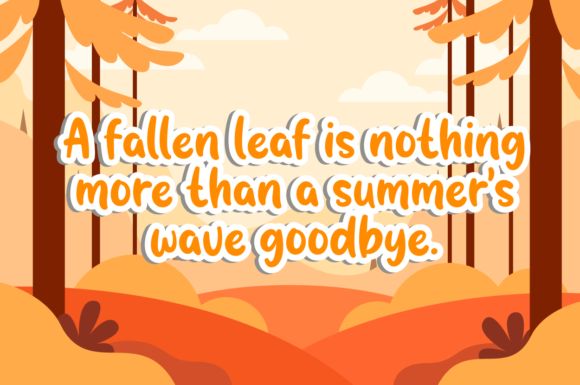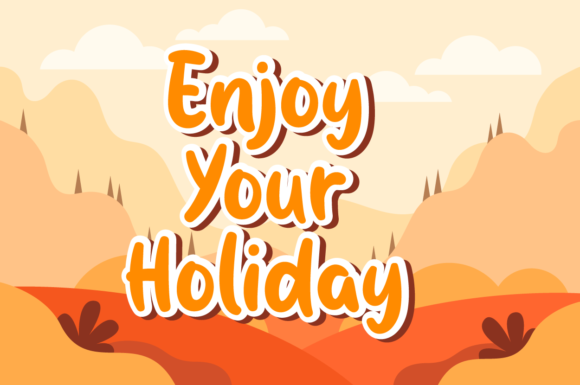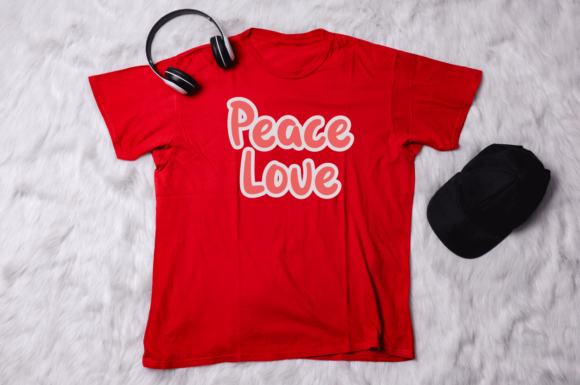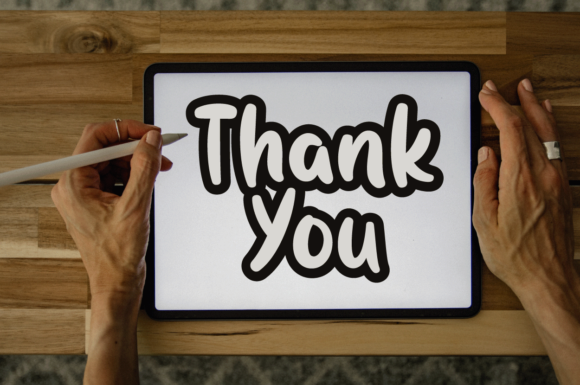
Discover the Charm of Autumn Secret Font: Elevate Your Designs with a Quirky Handwritten Touch
Are you on the lookout for a font that adds a personal touch to your designs? Look no further than the Autumn Secret Font. This quirky handwritten font is making waves in the design community for its friendly feel and incredible versatility. Whether you’re working on thank you cards, quotes, greeting cards, logos, business cards, or any other design that needs an artistic flair, Autumn Secret Font is the perfect choice.
The Unique Appeal of Autumn Secret Font
What sets Autumn Secret Font apart is its unique, handwritten style that exudes warmth and friendliness. Its quirky charm makes it stand out in a sea of more traditional fonts, allowing your designs to capture attention and convey emotion more effectively. The font’s friendly feel makes it incredibly approachable, perfect for designs that aim to connect with the audience on a personal level.
One of the key advantages of Autumn Secret Font is its versatility. It doesn’t matter if you’re designing for digital platforms or print; this font adapts seamlessly across various contexts. Here are some of the many ways you can use Autumn Secret Font:
- Thank You Cards: Add a personal touch to your gratitude with beautifully designed thank you cards.
- Quotes: Make inspirational and motivational quotes stand out with a font that speaks to the heart.
- Greeting Cards: From birthday wishes to holiday greetings, Autumn Secret Font adds a warm, personal feel.
- Logos: For businesses looking to establish a friendly and approachable brand image, this font can be a great choice.
- Business Cards: Stand out in professional settings with business cards that have a touch of personality.
Bringing Your Creative Ideas to Life
Autumn Secret Font is more than just a typeface; it’s a tool for creativity. By incorporating it into your designs, you can instantly elevate your projects from ordinary to extraordinary. The font’s artistic feel encourages experimentation and creativity, making it perfect for designers and crafters looking to push the boundaries of their work.
Imagine being able to turn any design idea into a visually stunning piece that captures attention and evokes emotions. With Autumn Secret Font, this is now possible. Its quirky, yet endearing style ensures that your designs don’t just look good; they also resonate with your audience.
Why Designers and Crafters Love Autumn Secret Font
Designers and crafters are always on the lookout for fonts that can help their work stand out. Here are a few reasons why Autumn Secret Font has become a favorite:
- Easy to Read: Despite its artistic style, the font remains highly legible, making it suitable for both headings and body text.
- Customizable: The font comes with a range of variations, allowing you to customize it to fit your design needs.
Getting Started with Autumn Secret Font
Incorporating Autumn Secret Font into your designs is straightforward. Here are a few tips to get you started:
- Experiment with Sizes and Styles: Play around with different sizes and styles to see what works best for your design.
- Pair with Complementary Fonts: Don’t be afraid to pair Autumn Secret Font with other fonts to create visual interest.
Whether you’re a seasoned designer or a crafter looking to add a professional touch to your projects, Autumn Secret Font is an excellent addition to your toolkit. Its quirky, handwritten style and friendly feel make it incredibly versatile, capable of elevating a wide range of designs.